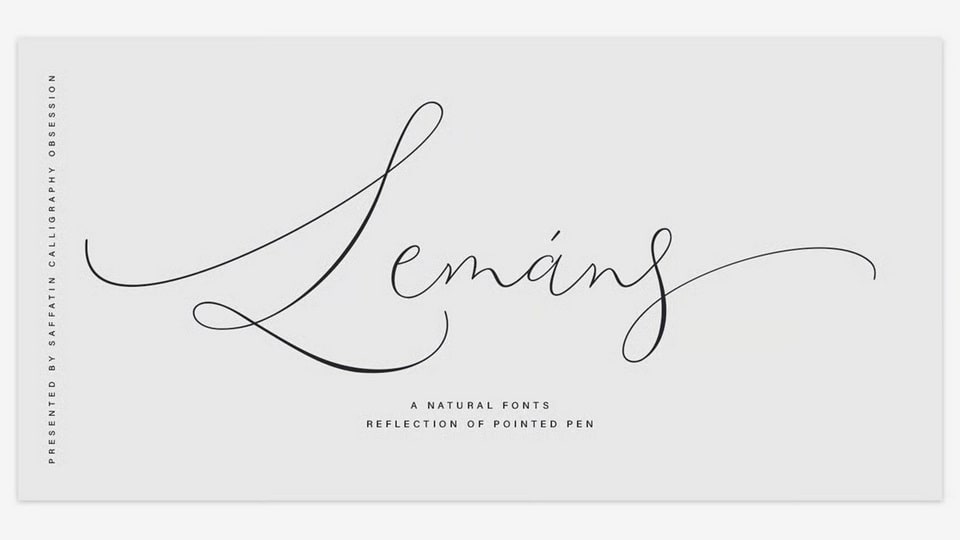
Lemans Pen Script Font › Fontesk
Download Lemans Pen Script font, a testament to the marriage of traditional penmanship and modern aesthetics, resulting in a slim, spontaneous, and wildly clean design.